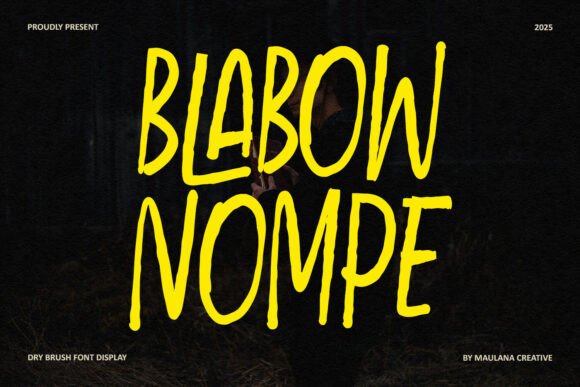
Unleash Your Creativity with Blabow Nompe Font
Have you ever been in the middle of a design project, and suddenly, you just can’t seem to find the right font? You’re not alone! I recall working on a poster design for a music festival, and I was determined to find a font that would capture the energetic and playful vibe of the event. That’s when I stumbled upon Blabow Nompe, a bold dry brush display font that instantly caught my attention.
Blabow Nompe is more than just a font – it’s a statement piece. Its raw, handcrafted feel and rough strokes create an eye-catching look that’s perfect for designs that need intensity and personality. In this article, we’ll dive into the world of Blabow Nompe, exploring its features, and how to make the most of this amazing font.
An Honest Review of Blabow Nompe
• Unique and eye-catching design: Blabow Nompe’s rough strokes and natural brush textures make it stand out from other fonts.
• Multilingual support: This font comes with support for multiple languages, making it perfect for global designs.
• Comprehensive character set: Uppercase, numerals, punctuation, ligatures – Blabow Nompe has got you covered.
• Perfect for bold statements: This font is ideal for designs that need a striking, artistic touch.
⚠️ While Blabow Nompe is an amazing font, it’s not suitable for body text or small font sizes. Its bold and rough texture works best for headlines and titles. 🤔 Additionally, some users might find the font a bit too distressed for their taste, but that’s part of its charm!
The Story Behind Blabow Nompe
Blabow Nompe was inspired by the raw energy of street art and graffiti. Its creator, a passionate designer, wanted to capture the essence of hand-painted letters and bring it to the digital world. The result is a font that’s both bold and beautiful, perfect for designers who want to add a touch of personality to their work.
What is Blabow Nompe? Blabow Nompe is a bold dry brush display font with a raw, handcrafted feel.
What is Blabow Nompe best used for? Blabow Nompe is perfect for posters, headlines, album covers, streetwear branding, social media graphics, and creative projects that demand a striking, artistic touch.
Is Blabow Nompe suitable for body text? No, Blabow Nompe is best used for headlines and titles. Its bold and rough texture works best for large font sizes.
Does Blabow Nompe come with multilingual support? Yes, Blabow Nompe comes with support for multiple languages.